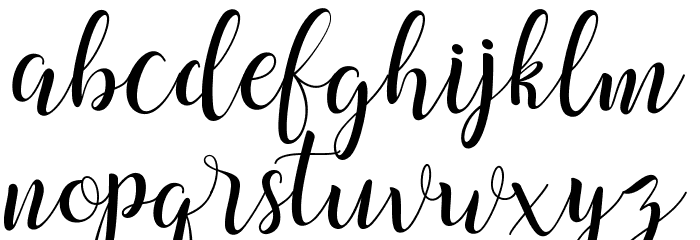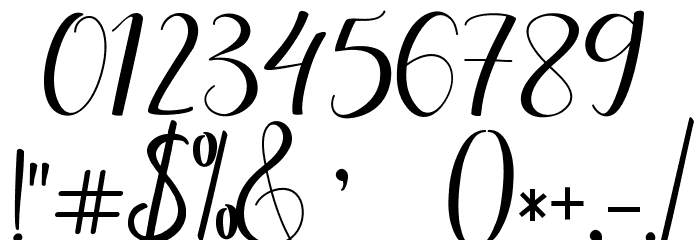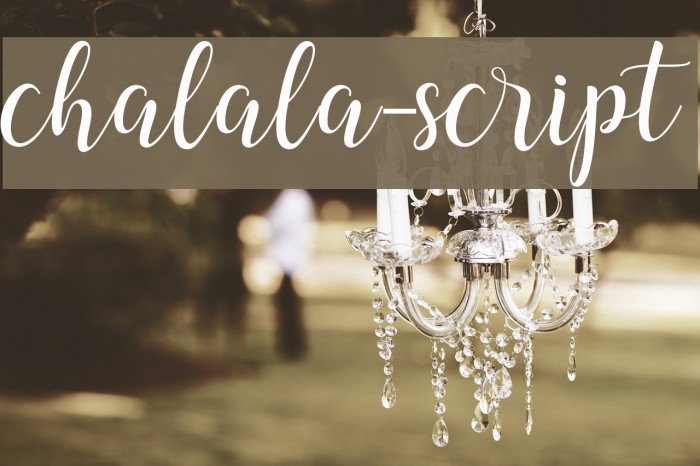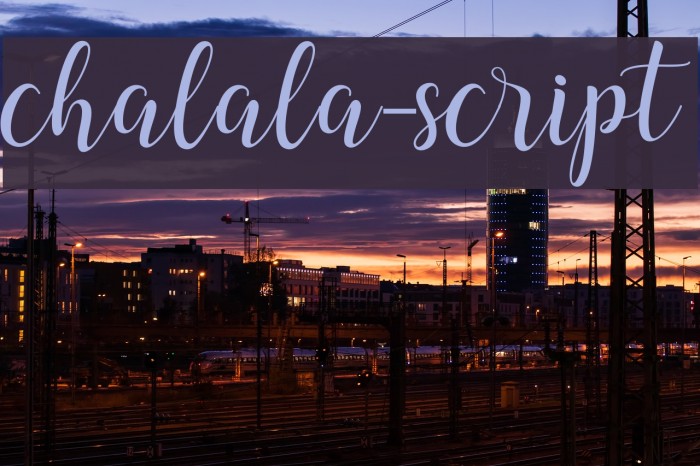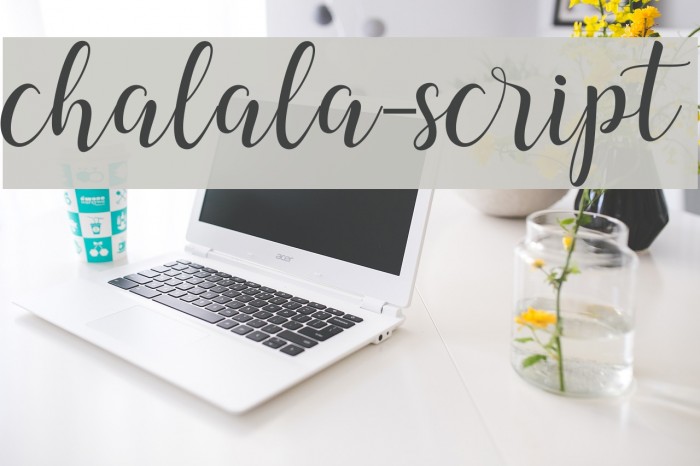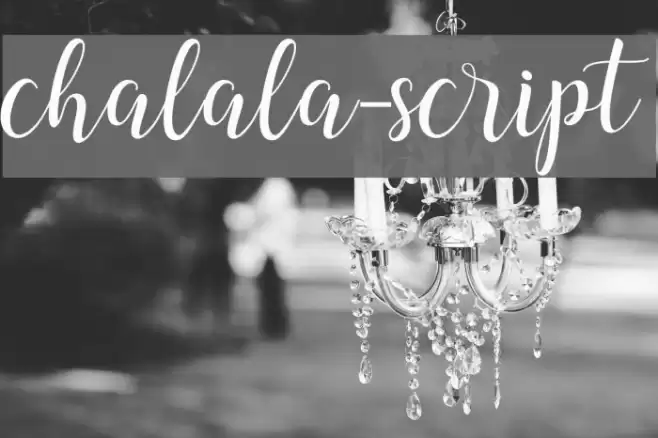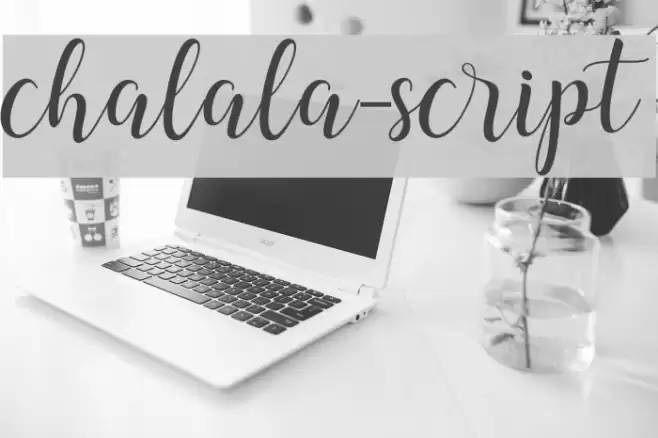
chalala-script Font
This elegant script font features a flowing, cursive style with smooth, connected strokes. The uppercase letters are ornate and decorative, with intricate loops and swirls, while the lowercase letters maintain a more consistent and readable form. The numerals are stylish and align well with the overall aesthetic, adding a touch of sophistication. Special characters are thoughtfully designed, complementing the script's graceful appearance. This font exudes a sense of elegance and charm, making it suitable for a variety of creative applications.
A graceful and elegant script font with flowing, connected strokes.
- Proposed Projects: Ideal for wedding invitations, greeting cards, branding, and elegant packaging designs.
- Overall Style: Elegant
- Use Case: Logos, Invitations, Decorative text